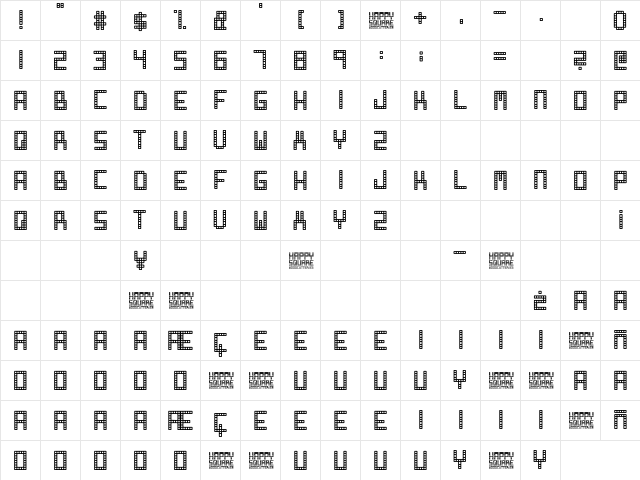
Happy Square Regular
Happy Square takes a measured approach to typography — its balanced proportions and neutral character make it a reliable workhorse for both digital and print work.